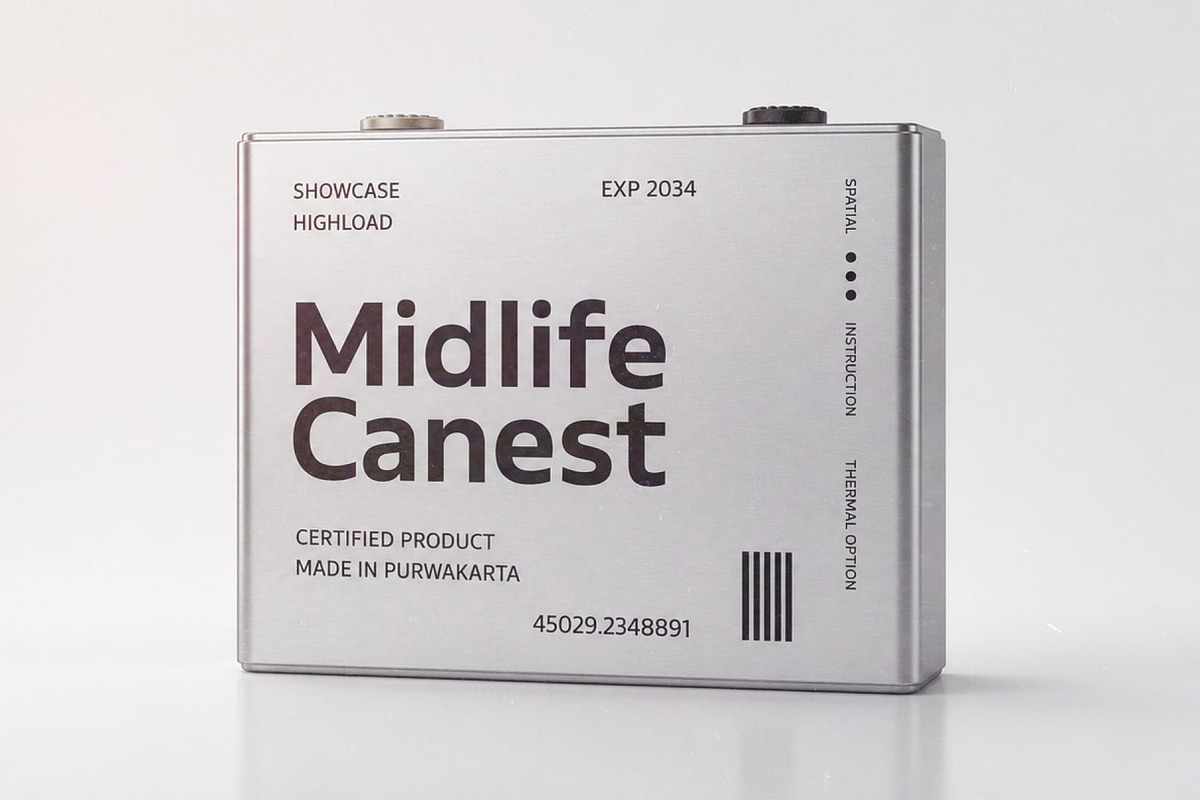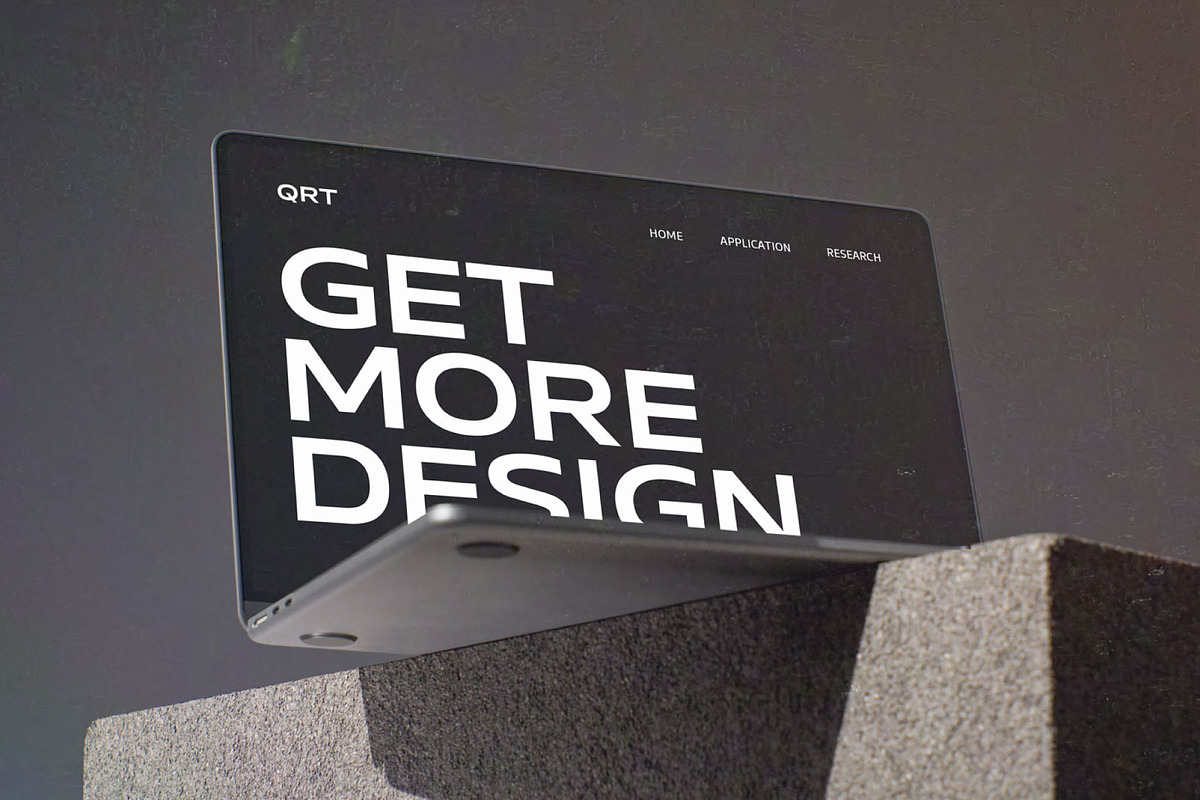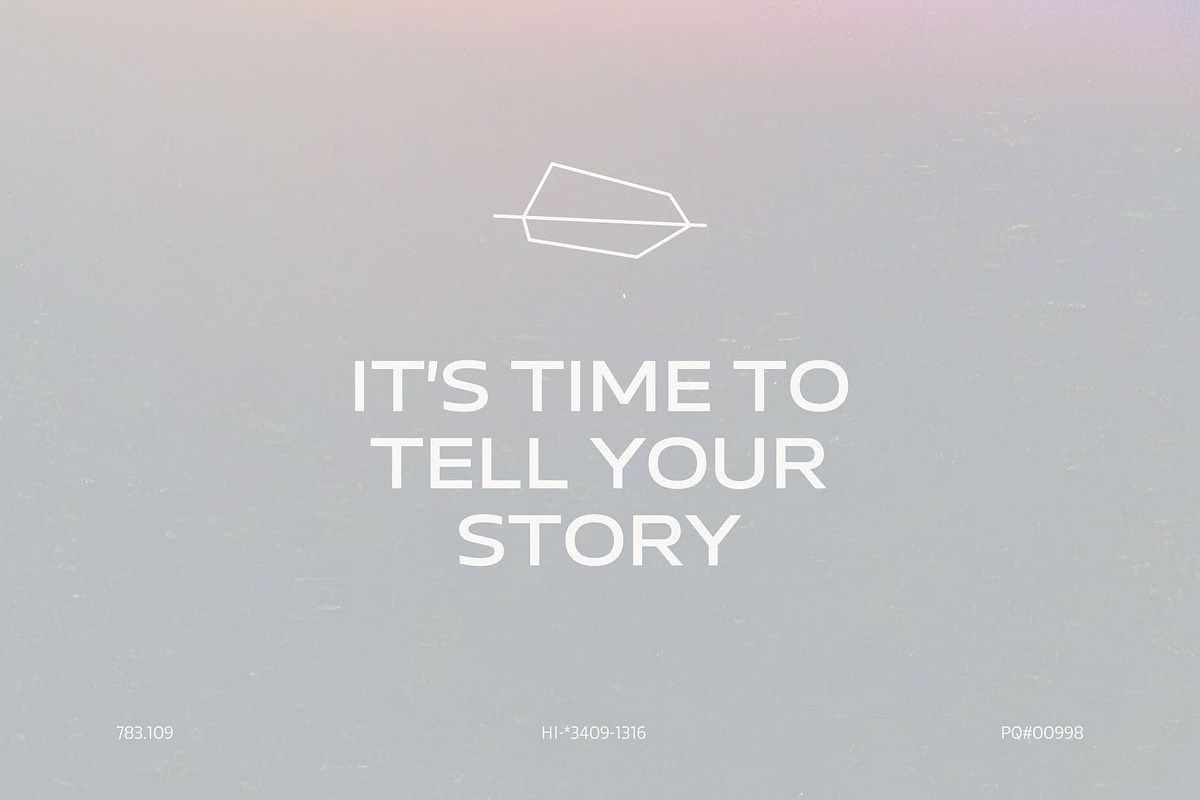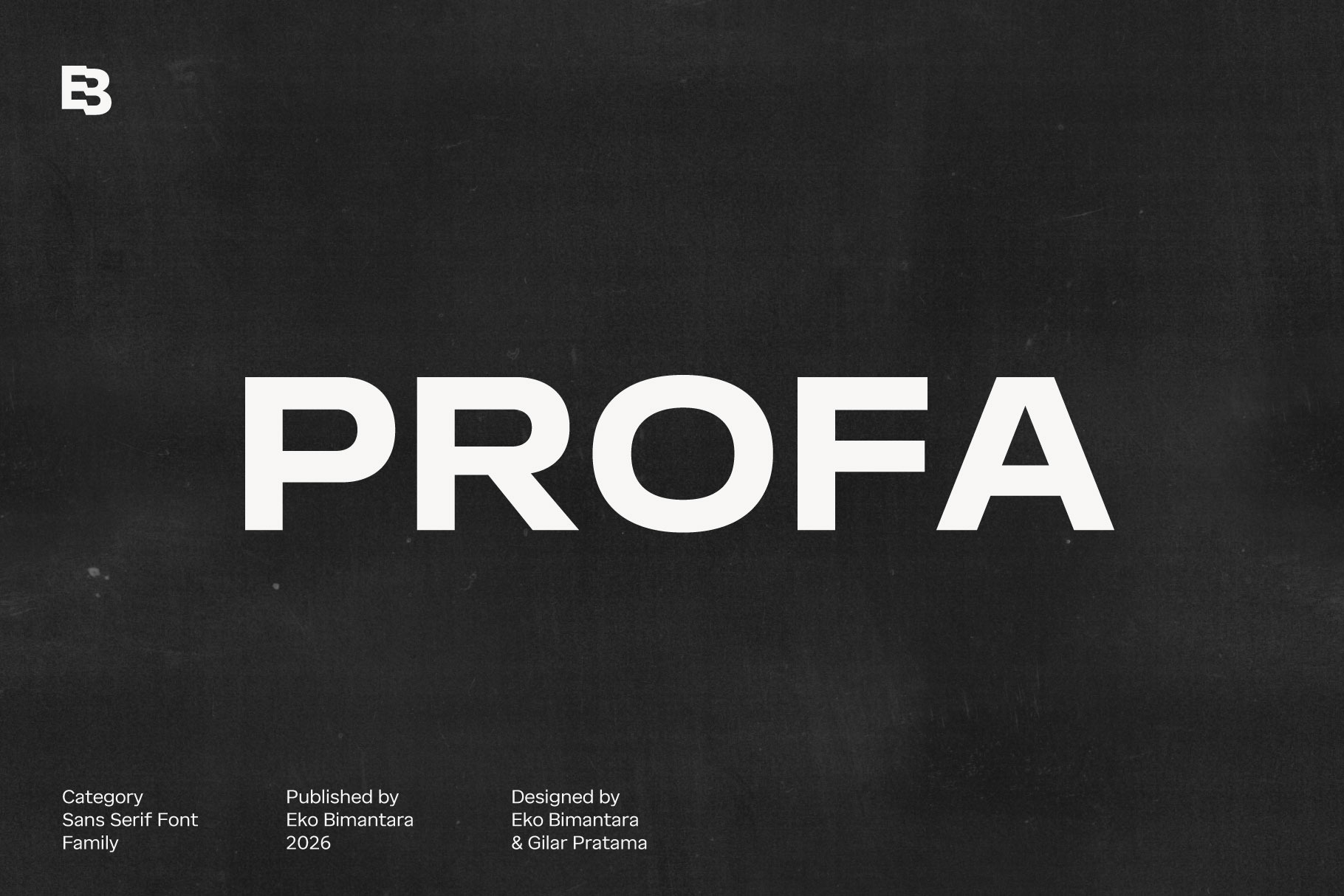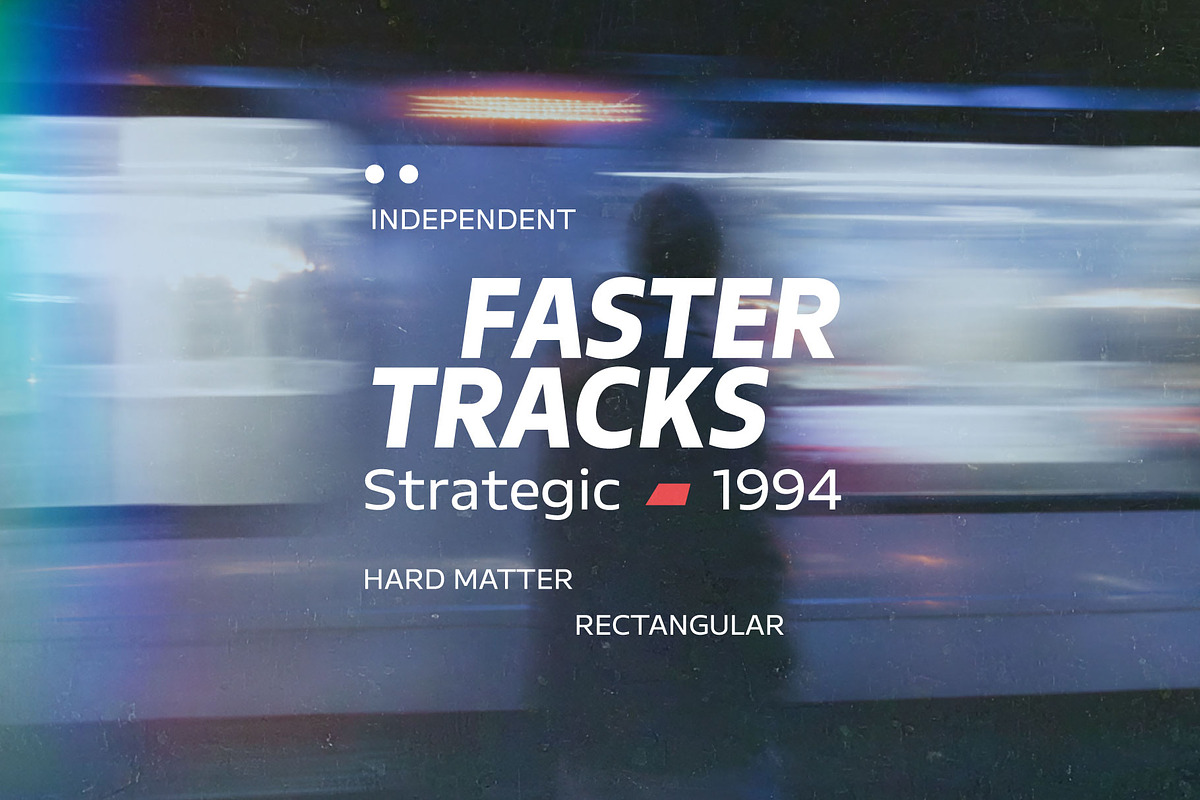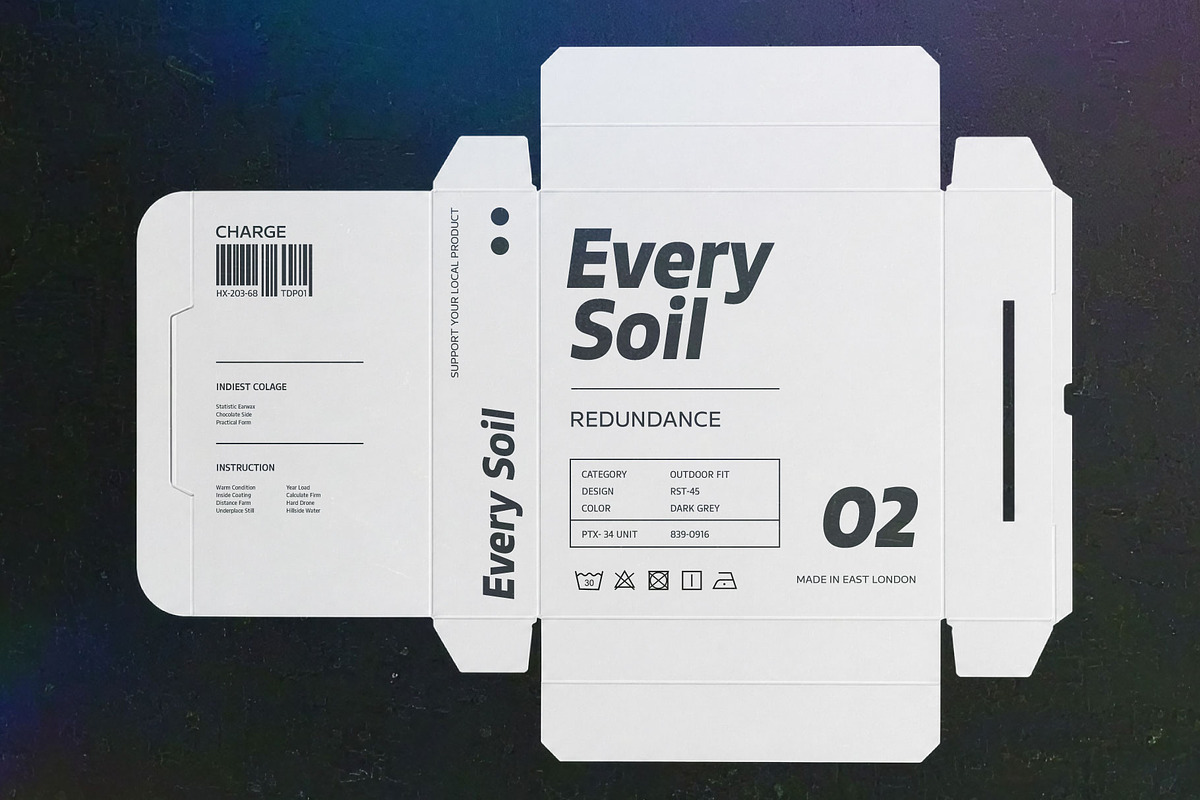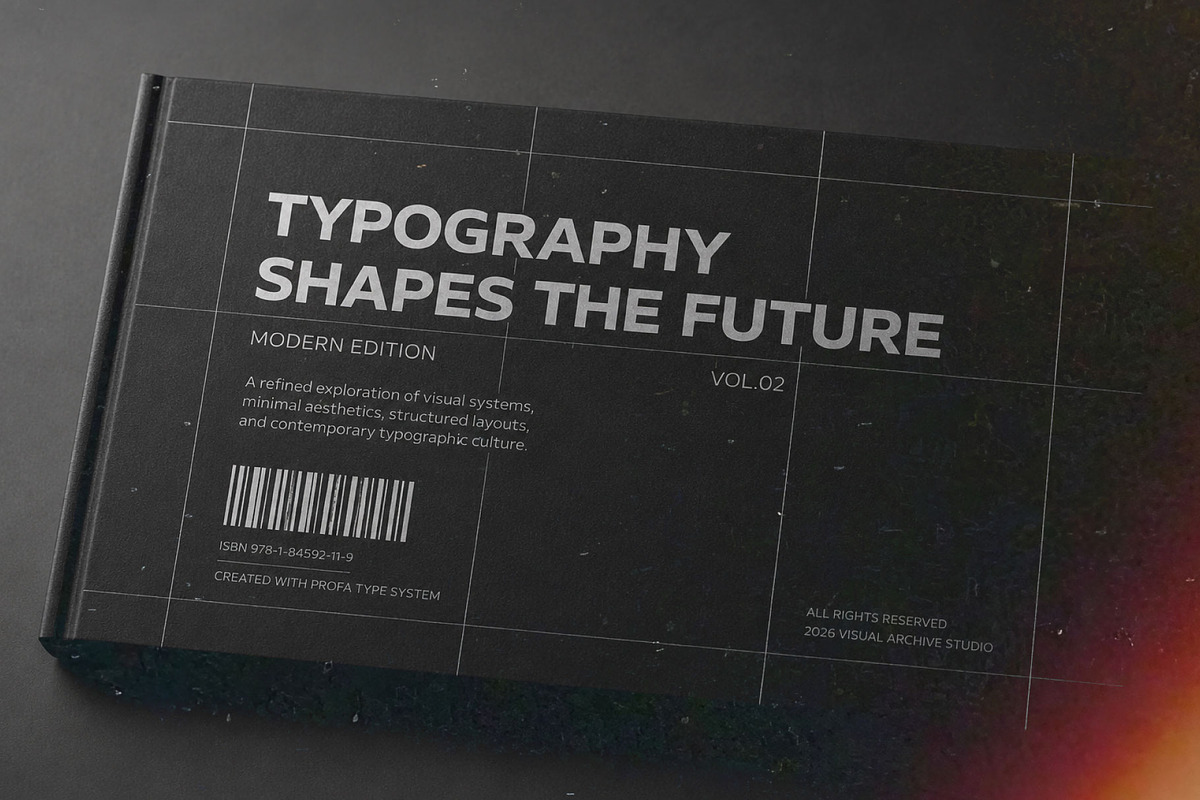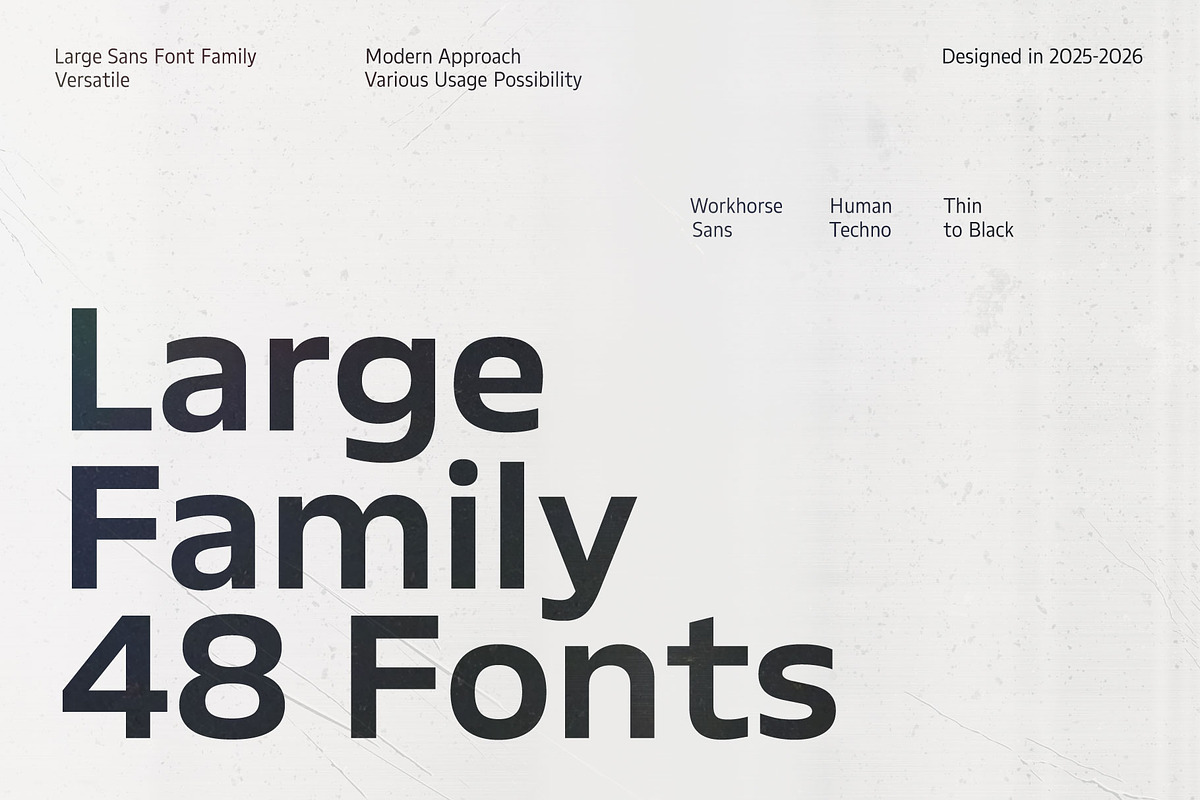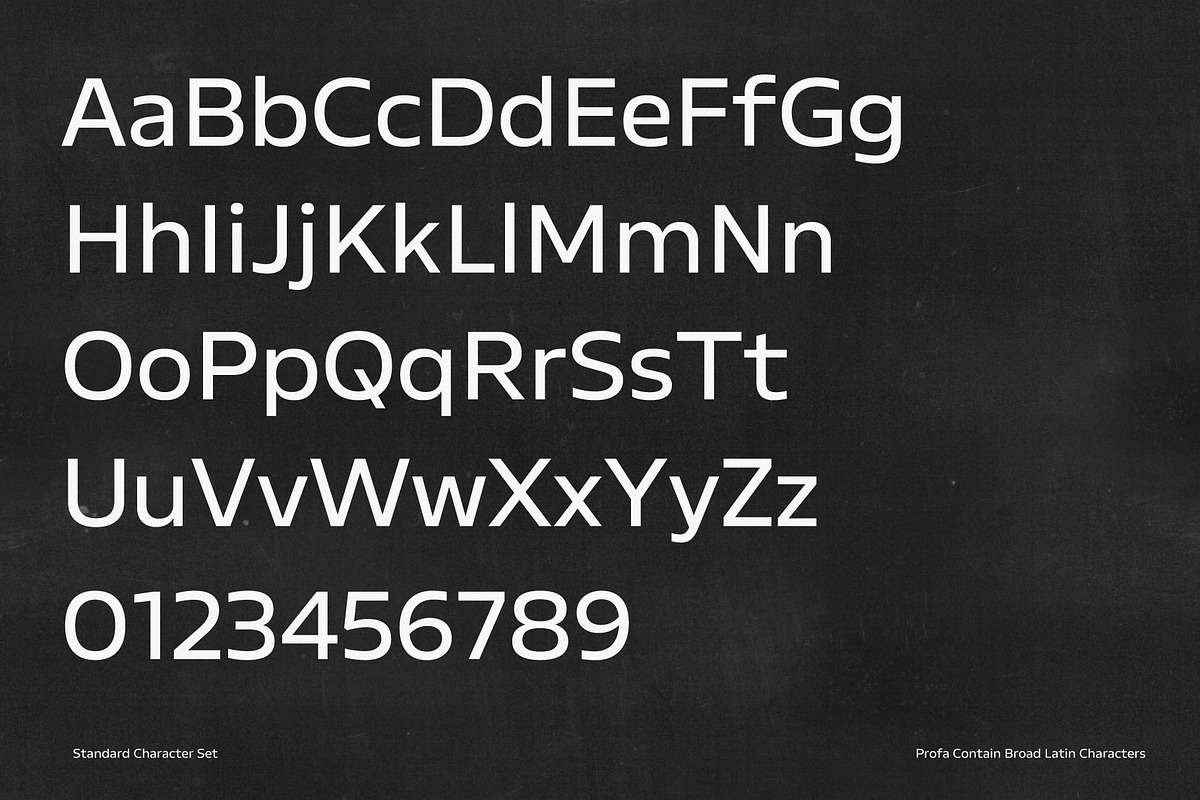
Profa; 48 Sans Serif Fonts
Profa is a sans serif large font family built for bold communication and flexible visual systems. Featuring 48 styles across Thin to Black weights with Condensed, Normal, and Expanded widths, it delivers a clean geometric structure balanced by subtle humanist details. Designed to perform seamlessly in branding, editorial, interface, packaging, and large-scale typography, Profa combines precision, versatility, and modern attitude into a highly adaptable type system for professional creative work.